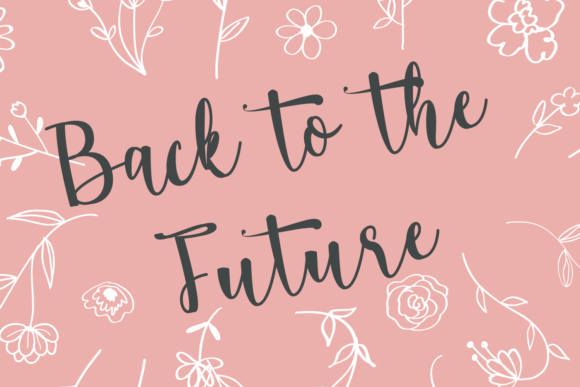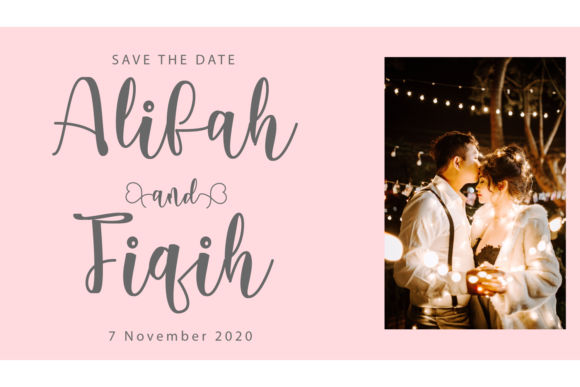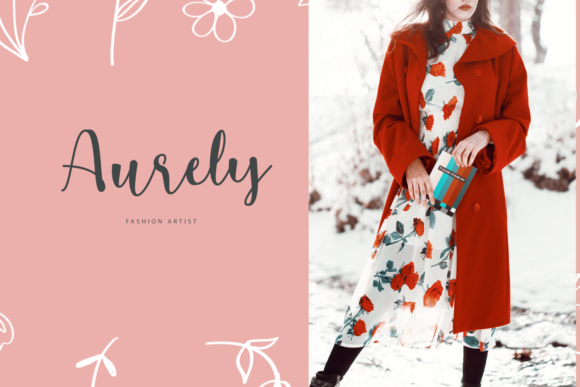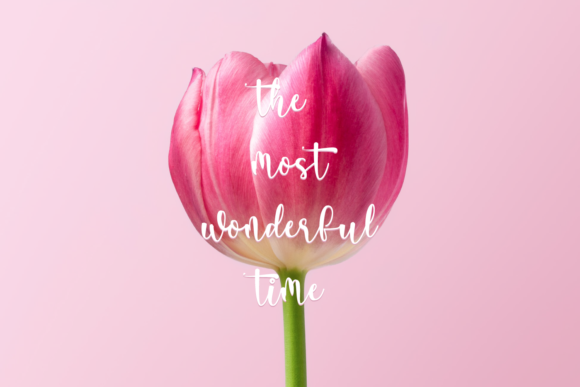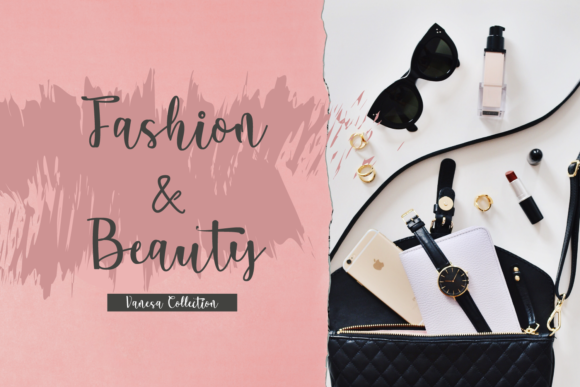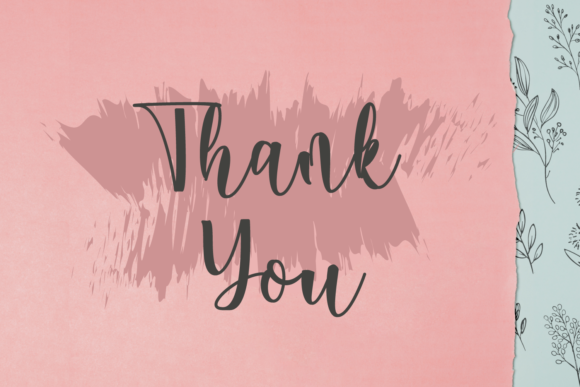
Flora Font is a beautiful, handwritten font that feels equally charming and elegant. It’s perfect for wedding invitations, thank you cards, quotes, greeting cards, logos, business cards, and every other design that needs a personal touch.
- ✨ PUA Encoding: Flora Font is PUA encoded, which means you can access all of the glyphs and swashes with ease!
- ✅ Varying Baseline: The font features a varying baseline, which gives it a natural, handwritten feel.
- ✅ Smooth Lines: The lines are smooth and flowing, making it perfect for designs that need a touch of elegance.
- ✅ Gorgeous Glyphs: The font comes with a range of gorgeous glyphs and stunning alternates.
- ⚠️ Legibility: As with any handwritten font, legibility can be an issue at very small sizes.